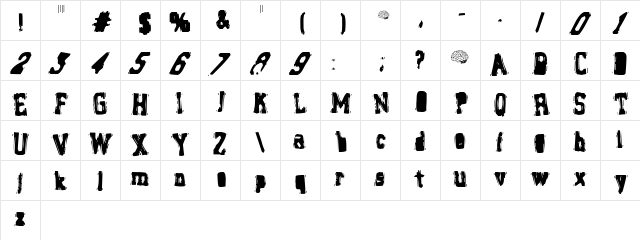
Brain Stew Regular
Design Context for Brain Stew Typeface
Brain Stew is a composed and adaptable typeface that performs quietly and consistently across a wide range of design contexts.